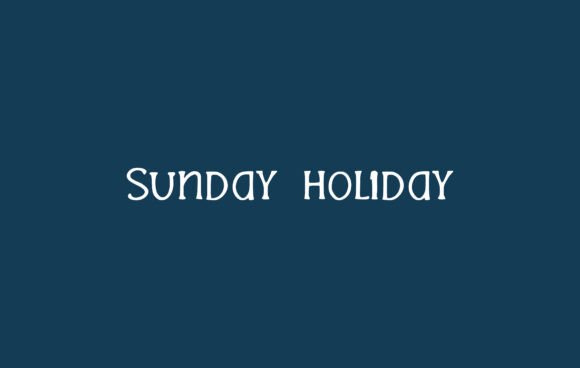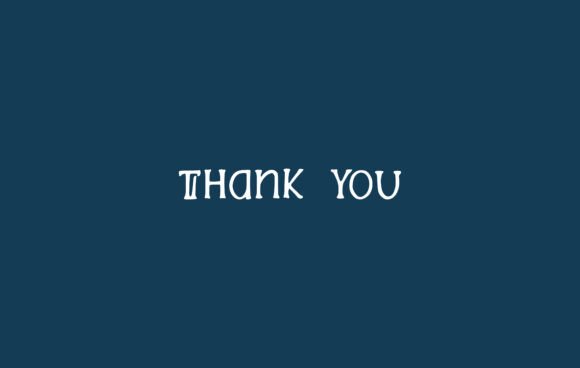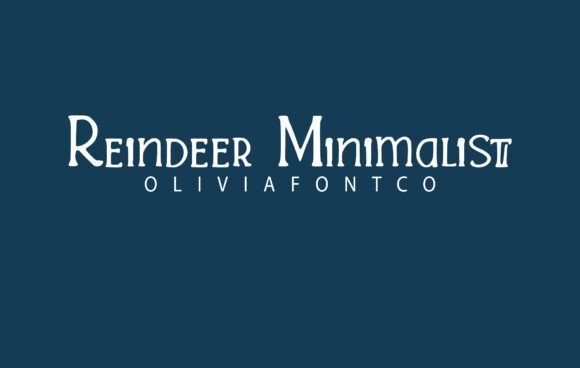
Introduction to Reindeer Minimalist Font
Reindeer Minimalist font is an authentic handwritten font with a romantic touch.
Key Features of Reindeer Minimalist Font
Why Choose Reindeer Minimalist Font?